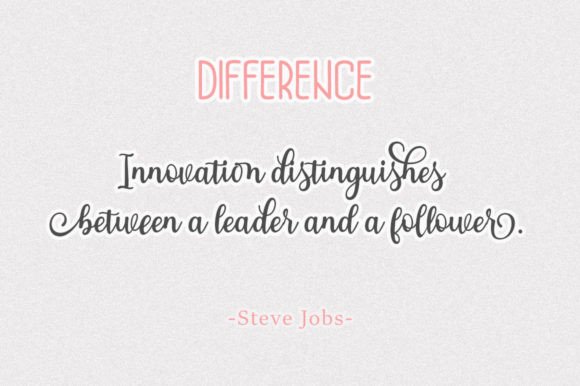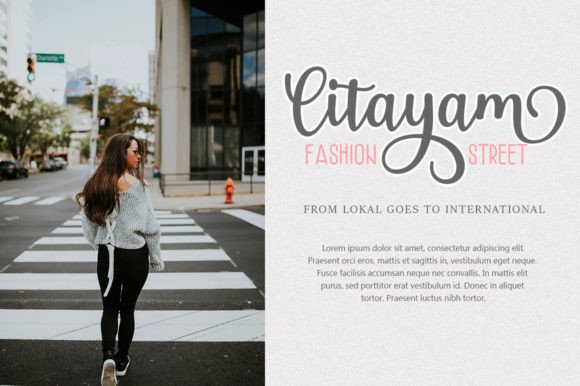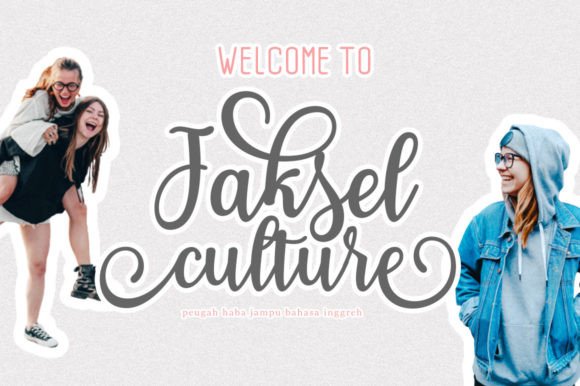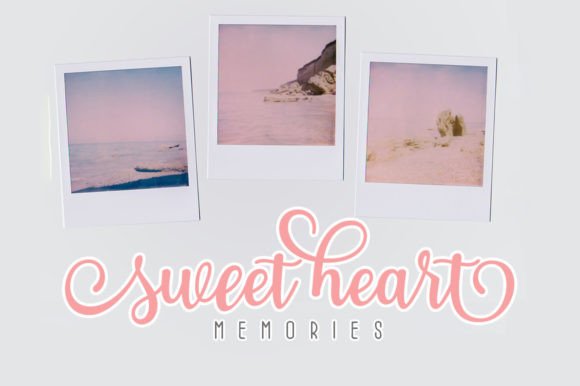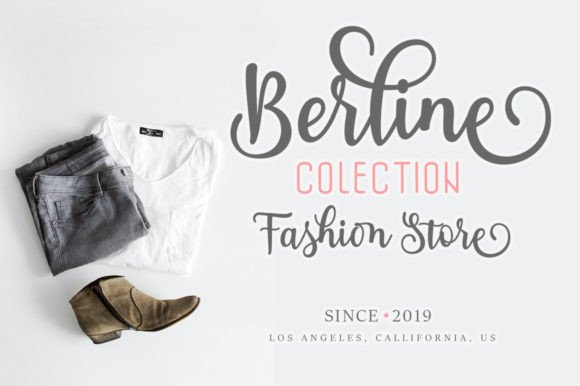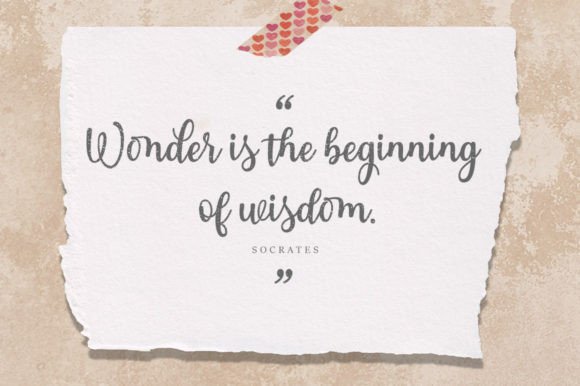
Introduction to Shine Nature Font
Shine Nature, just as sweet as flowers, flawless as you.
A perfect font for your minimal yet beautiful website, social media branding, Pinterest banners, printed invitations, and more Shine Nature font, like a fragrance, speaks to your heart, your audience, clients and guests, and people around you.
Shine Nature Font offers exceptional quality and versatility, making it a valuable addition to your design toolkit. Whether you’re creating for personal projects or commercial use, Shine Nature Font delivers professional results.